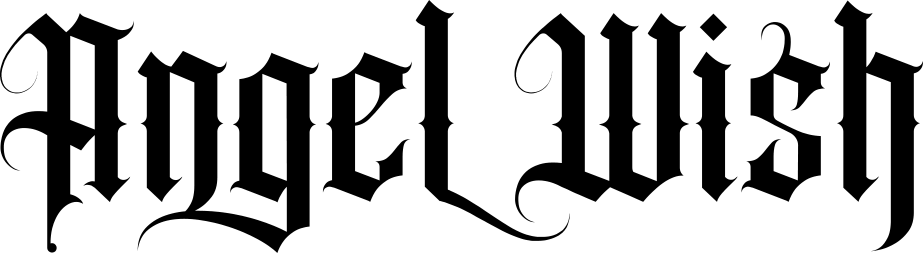
Angel Wish Font
You cannot go wrong with Angel Wish font which is one of the gothic fonts. In addition to the triangular lines, this font also has cursive lines, which gives your design extraordinary beauty and decoration.
Applications of this font can be used to design posters, flyers, poker cards, beer labels, and packaging cigarettes. If you want to increase your chances of selling flyer products and attractive black letter posters, be sure to include this font in your download list.